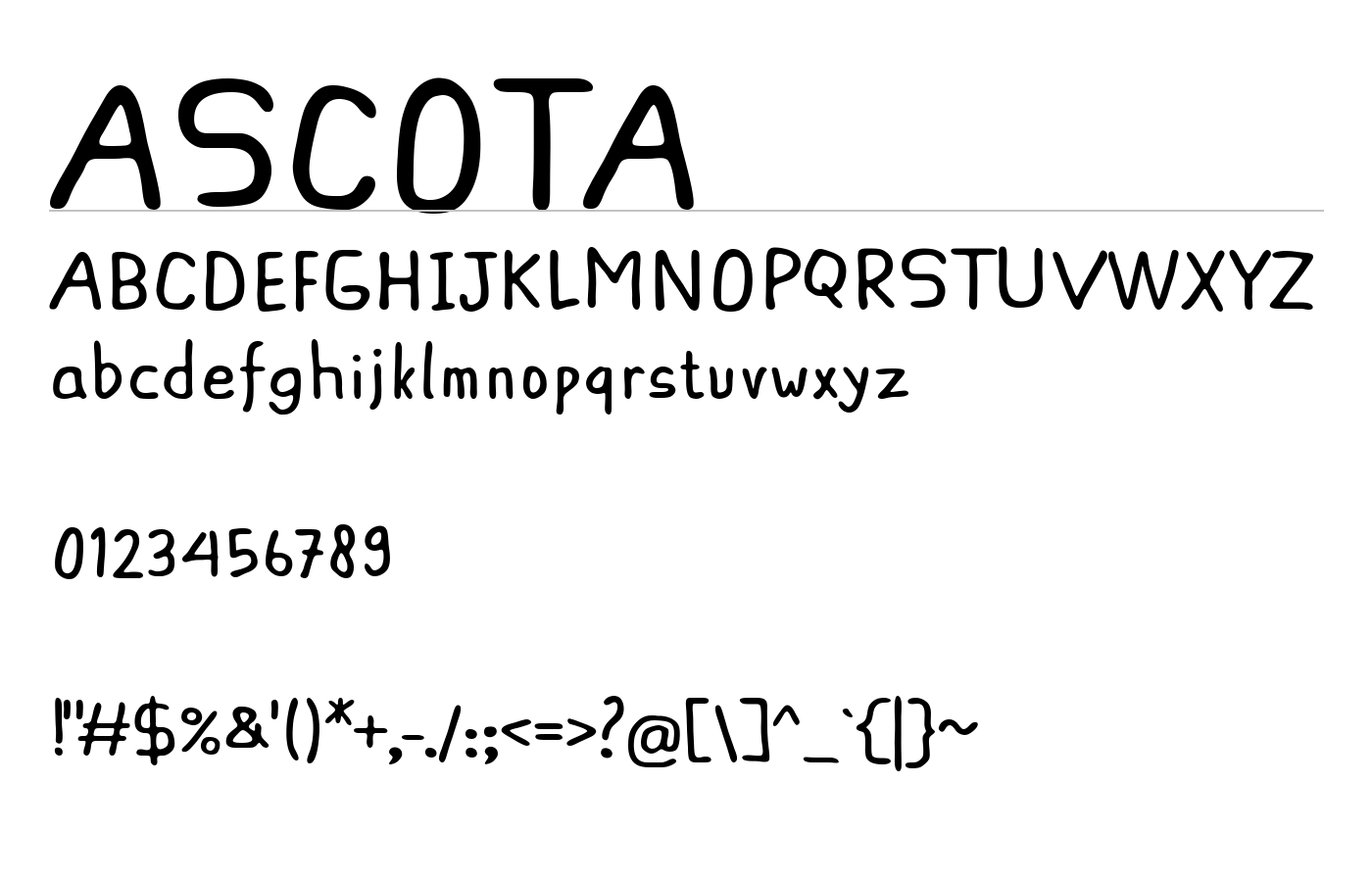
Ascota is a casual sans serif font with a hand-drawn, organic feel characterized by uneven stroke widths and slightly irregular letterforms. Its rounded shapes and playful style make it ideal for friendly, approachable branding, children’s materials, or creative projects that want a relaxed and informal tone. This font works well for headlines, logos, and packaging where a unique, human touch is desired.
ASCOTA Font
About ASCOTA Font
| Font family | ASCOTA Font |
| Designer | Andrian Dehasta, Situjuh Nazara |